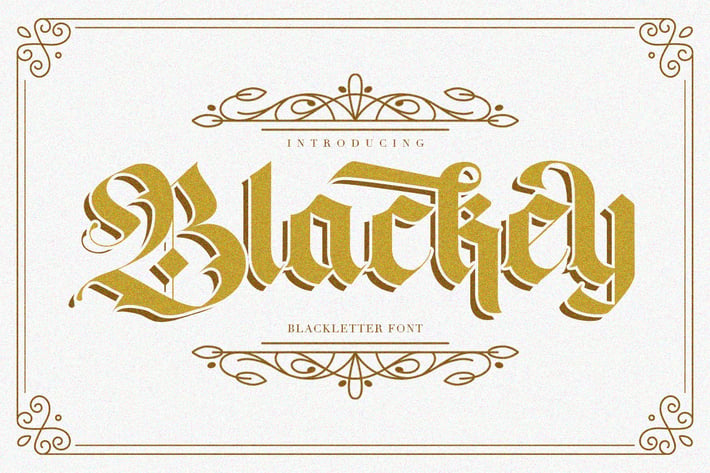
Blackey Bold Decorative Gothic Blackletter Font
Introducing Blackey Blackletter Font
Blackey Blackletter Font is a handmade Modern Victorian handlettering, which is combining modern and classic typography with some awesome alternates. Yes we back to early 1800s, bring classic touch on this decade.